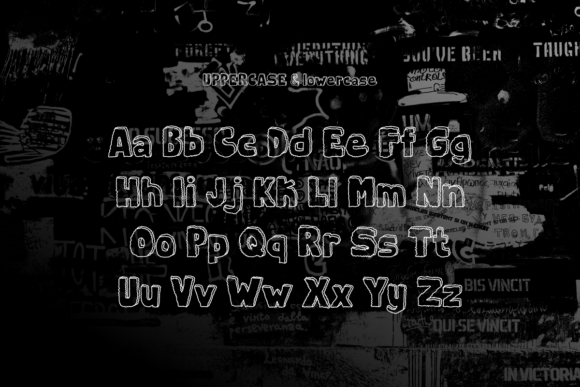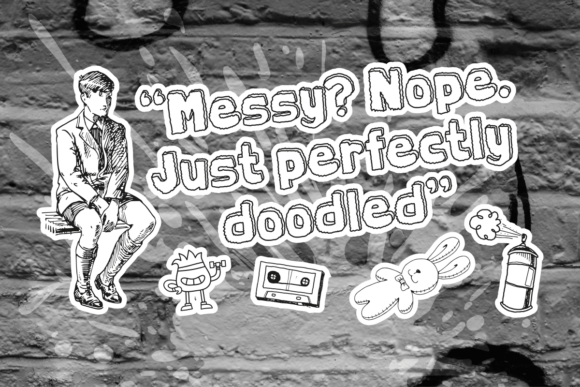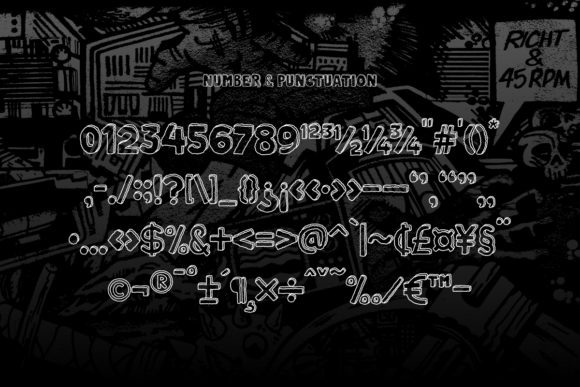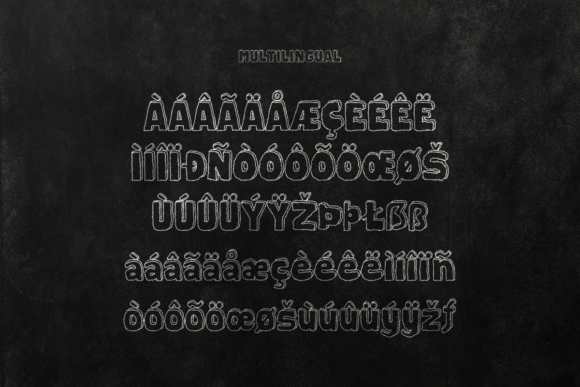
Meet Doodletron: The Ultimate Bold and Playful Outline Font
Are you tired of using the same old fonts for your designs? Look no further! Introducing Doodletron, a bold and playful outline doodle-style font that’s packed with personality. This font is perfect for designers, illustrators, and creatives who enjoy playful, urban, and hand-crafted aesthetics.
The Unique Charm of Doodletron
Doodletron stands out with its hand-drawn sketch look — imperfect yet perfectly balanced — giving every letter a spontaneous, creative, and expressive vibe. It’s designed to look like it was drawn straight from a sketchbook onto your screen. The font’s unique outline doodle texture makes it perfect for projects that need a touch of fun and artistic chaos.
Doodletron is ideal for a wide range of creative projects, including:
- Posters: Add a touch of playfulness to your posters with Doodletron’s bold and expressive font.
- Stickers: Create eye-catching stickers with Doodletron’s unique doodle-style texture.
- Comics: Bring your comic characters to life with Doodletron’s fun and energetic font.
- Streetwear designs: Give your streetwear designs a creative edge with Doodletron’s bold and playful font.
- YouTube thumbnails: Make your YouTube thumbnails stand out with Doodletron’s attention-grabbing font.
- Digital art: Add a touch of artistic chaos to your digital art with Doodletron’s unique outline doodle texture.
Who Will Love Doodletron?
Doodletron is perfect for:
- Designers: Add a touch of creativity to your designs with Doodletron’s bold and playful font.
- Illustrators: Bring your illustrations to life with Doodletron’s unique doodle-style texture.
- Creatives: If you enjoy playful, urban, and hand-crafted aesthetics, Doodletron is the perfect font for you.
Bring Your Ideas to Life with Doodletron
Whether you’re working on branding, merchandise, or content creation, Doodletron helps your work pop with doodle-style energy and originality. With Doodletron, you can:
- Create eye-catching designs that stand out from the crowd.
- Add a touch of playfulness to your projects.
- Bring your ideas to life with a unique and expressive font.
The Benefits of Using Doodletron
By using Doodletron, you’ll get:
- A unique and original font that will make your designs stand out.
- A bold and playful font that’s perfect for creative projects.
- A font that’s easy to use and pairs well with a wide range of other fonts.
| Font Name | Doodletron Font |
| Author | Joni type |
In conclusion, Doodletron is a bold and playful outline doodle-style font that’s perfect for designers, illustrators, and creatives who enjoy playful, urban, and hand-crafted aesthetics. With its unique outline doodle texture and hand-drawn sketch look, Doodletron is ideal for a wide range of creative projects. Bring your ideas to life with Doodletron — where messy meets mastery!
Get Ready to Add Some Doodle-Style Energy to Your Designs!